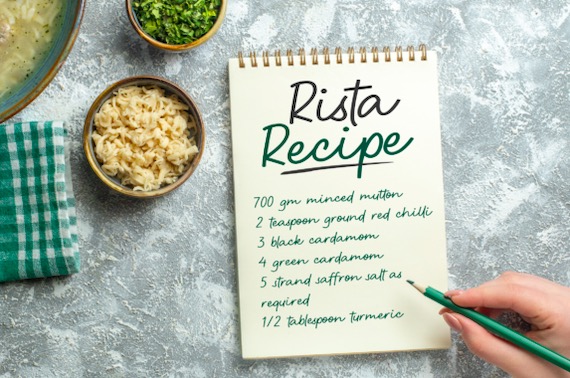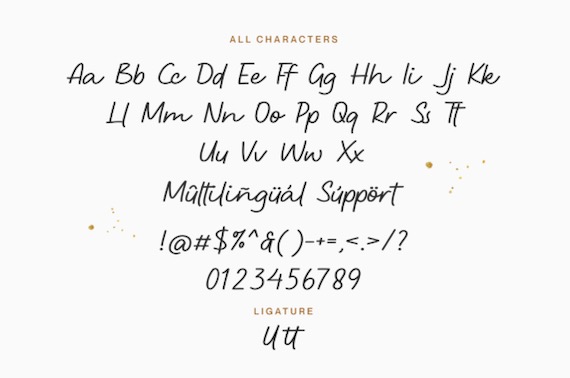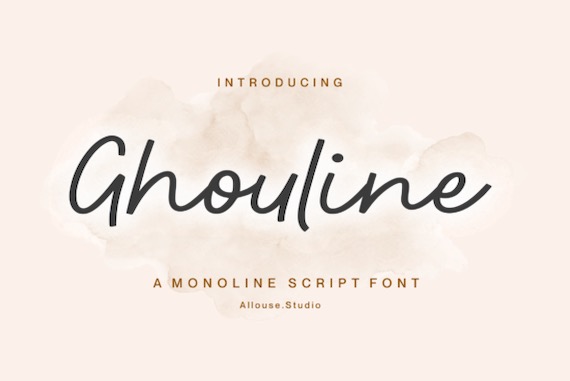
Ghouline Font is a beautiful and glamorous handwritten script typeface that was created and shared by Allouse Studio. It has a unique and classy monoline style along with a friendly look. This script font is perfect for product packaging, branding project, magazine cover, social media, invitation, or just used to express words above the background.
Ghouline Handwritten Monoline Font